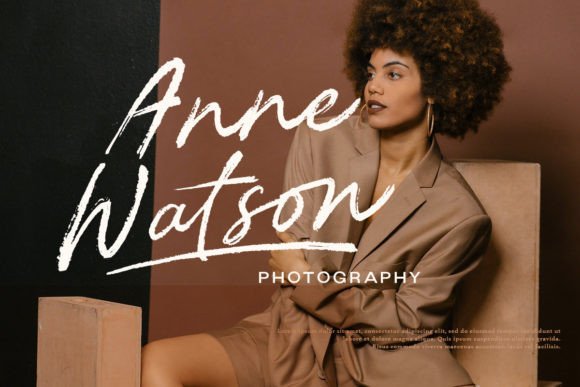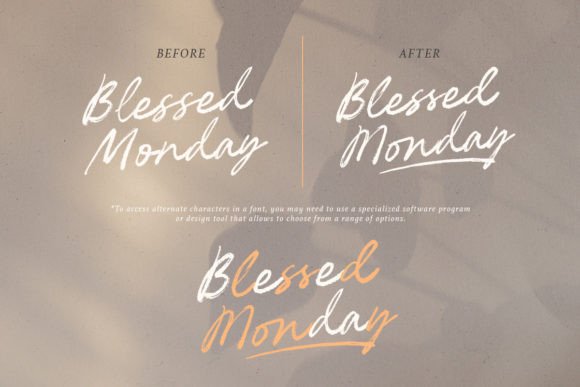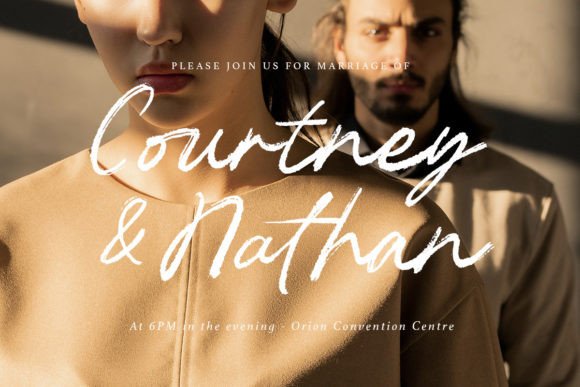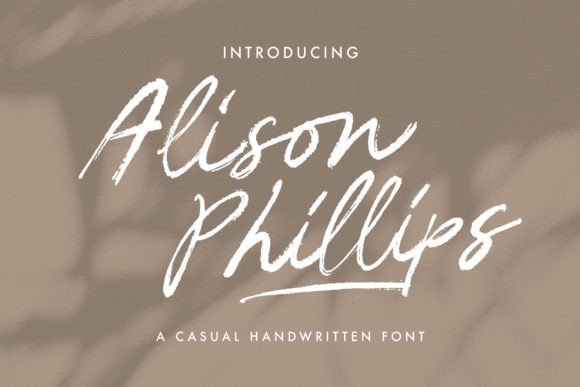
Introduction to Alison Phillips Casual Handwritten Font
Introducing Alison Phillips, a Casual handwritten font designed to bring a touch of authenticity and personal flair to your projects.
With its textured brush look, this font exudes an organic and intimate feel, allowing your designs to evoke a sense of uniqueness and character .
Key Features of Alison Phillips Casual Handwritten Font
Why Choose Alison Phillips Casual Handwritten Font?
Alison Phillips Casual Handwritten Font offers exceptional quality and versatility, making it a valuable addition to your design toolkit. Whether you’re creating for personal projects or commercial use, Alison Phillips Casual Handwritten Font delivers professional results.